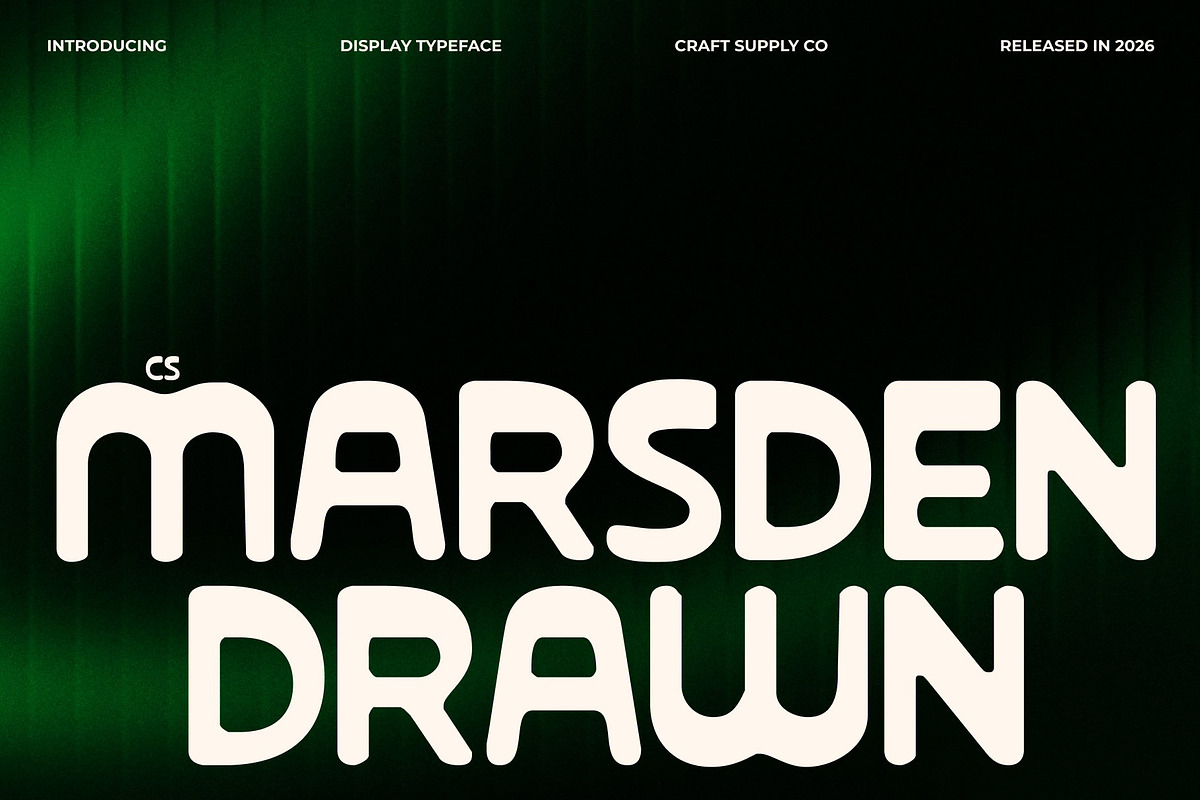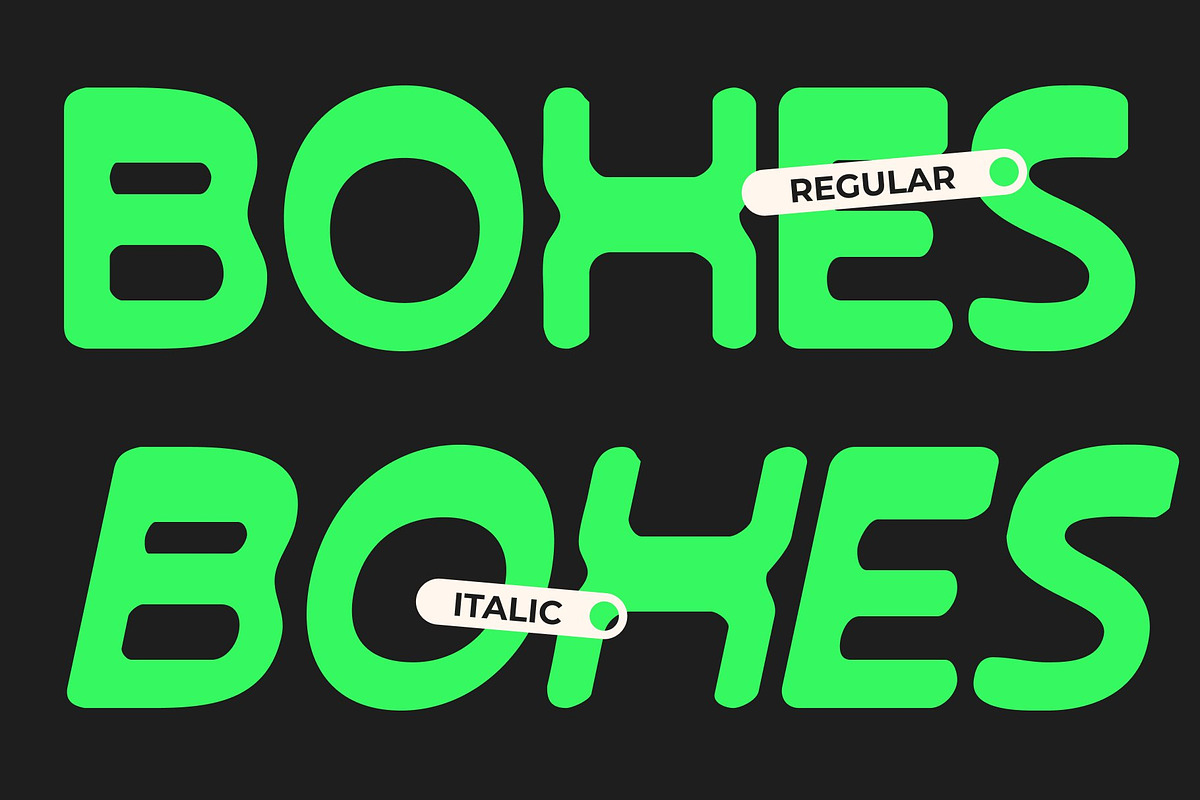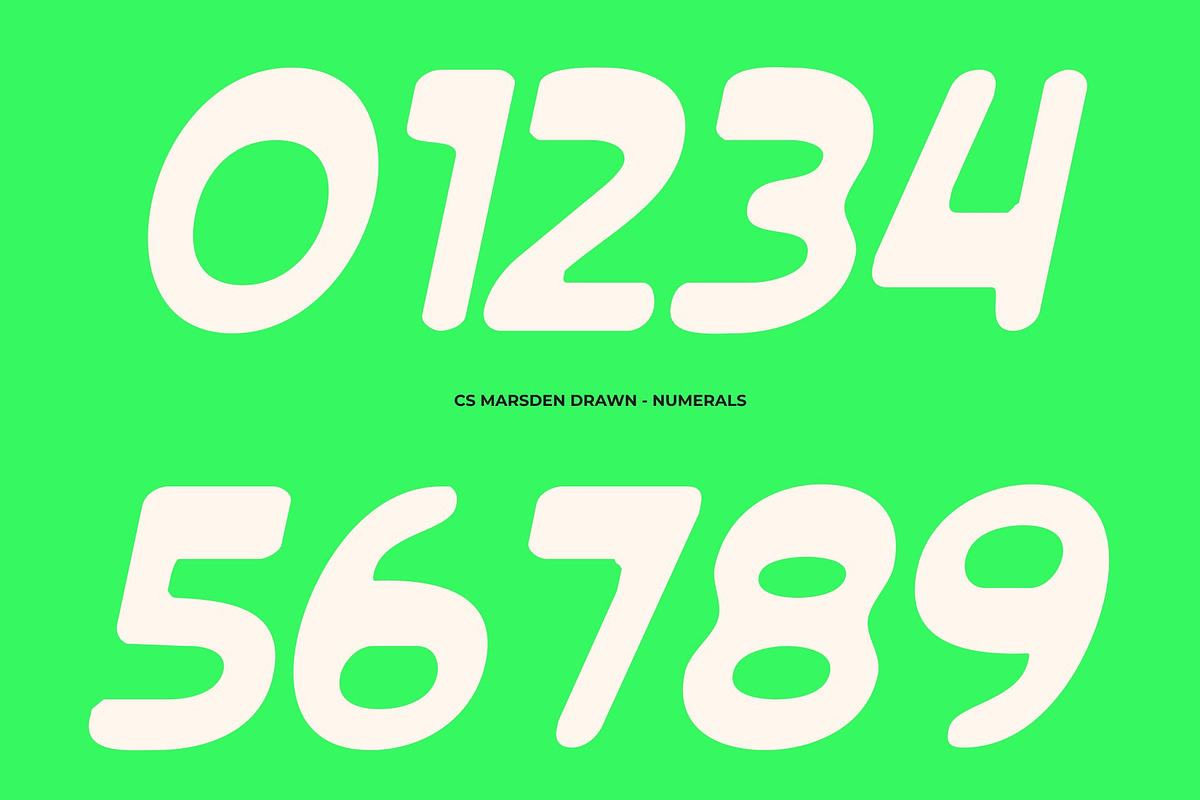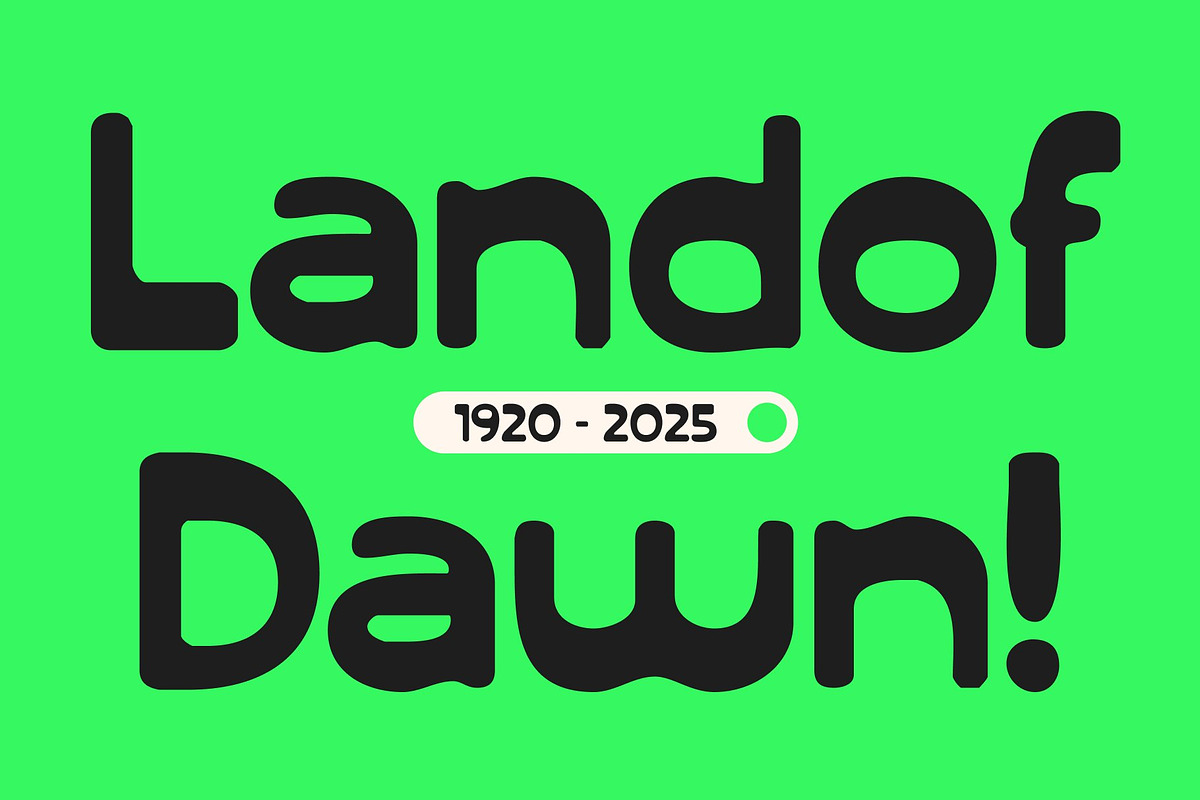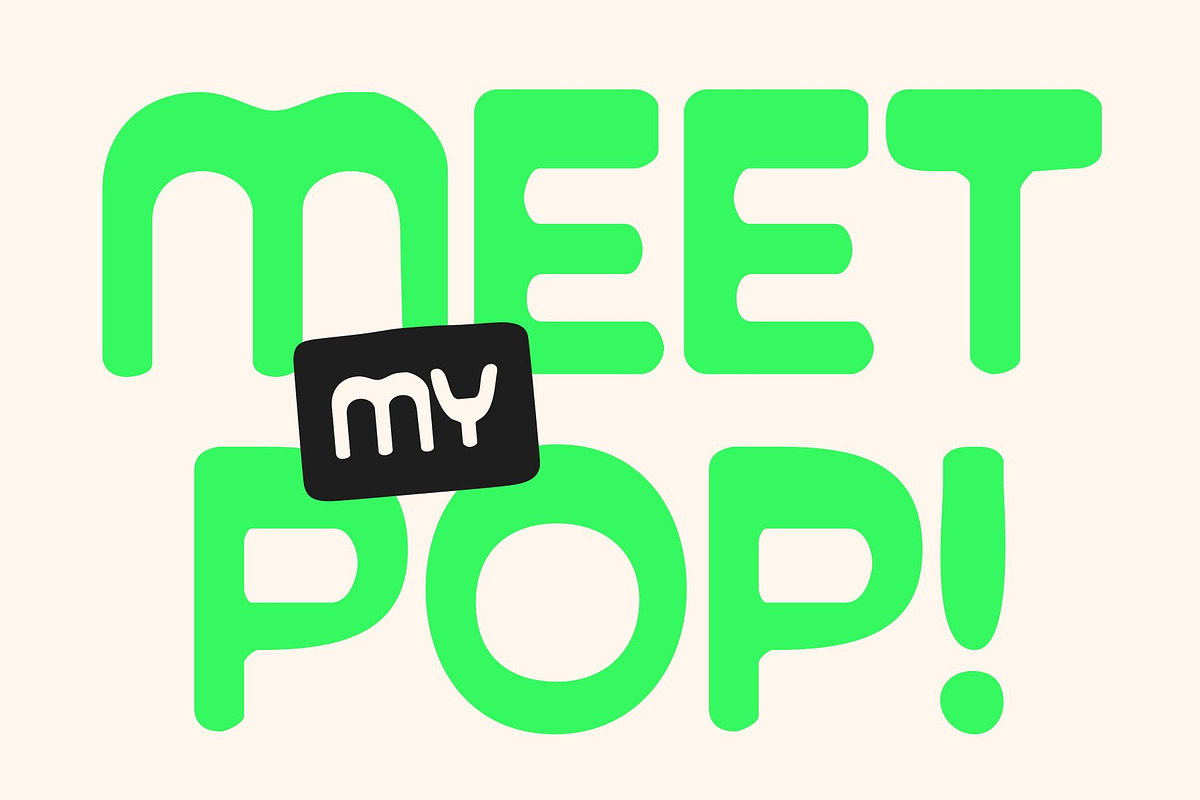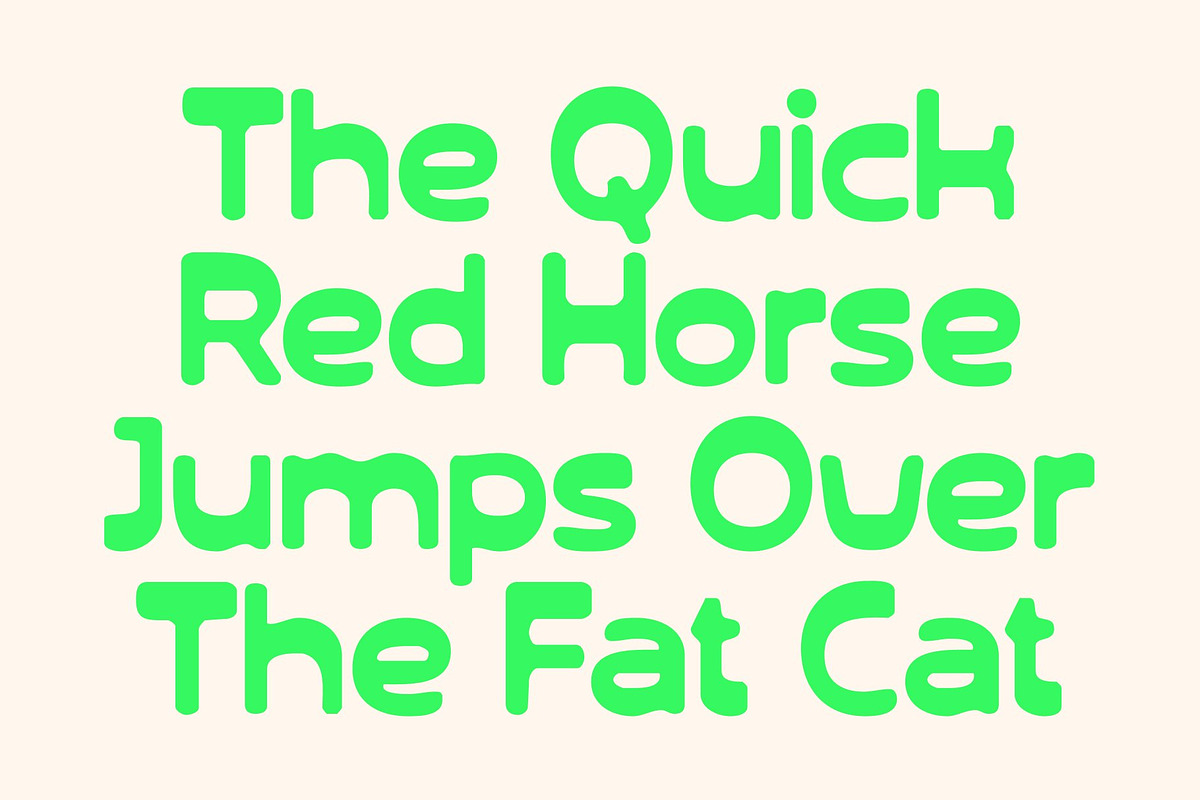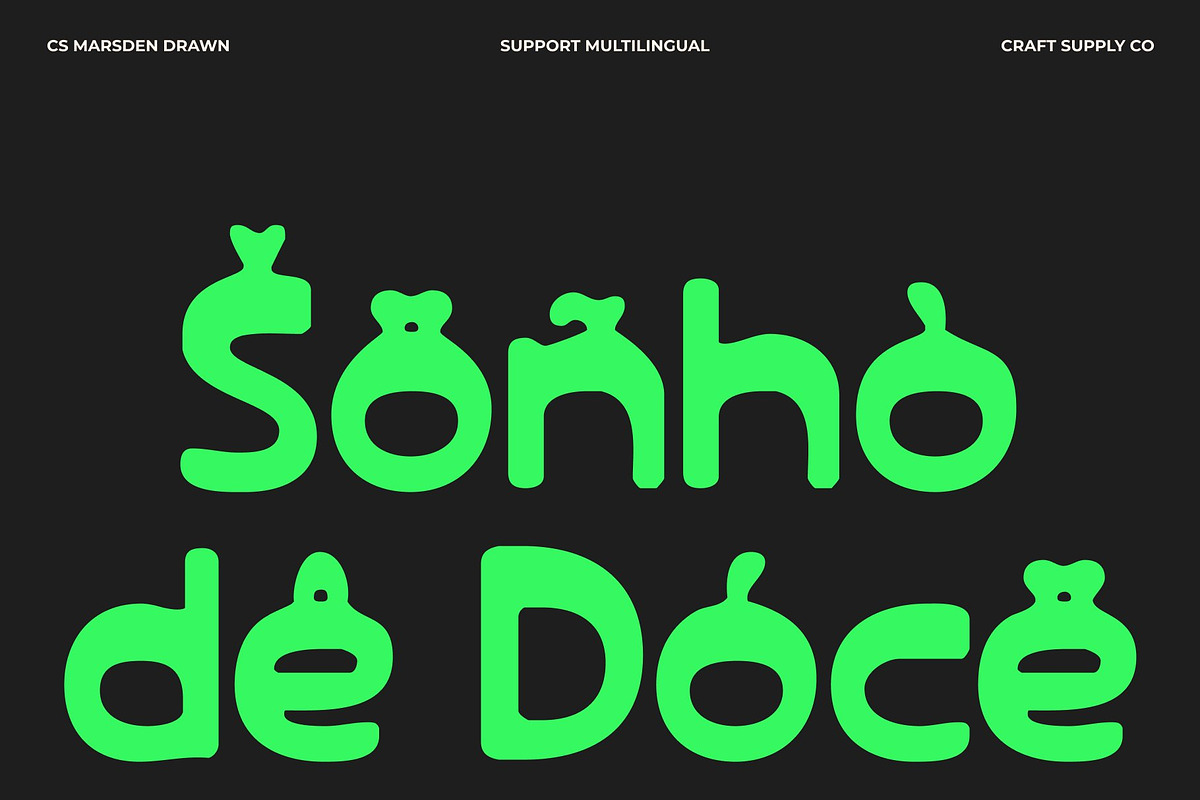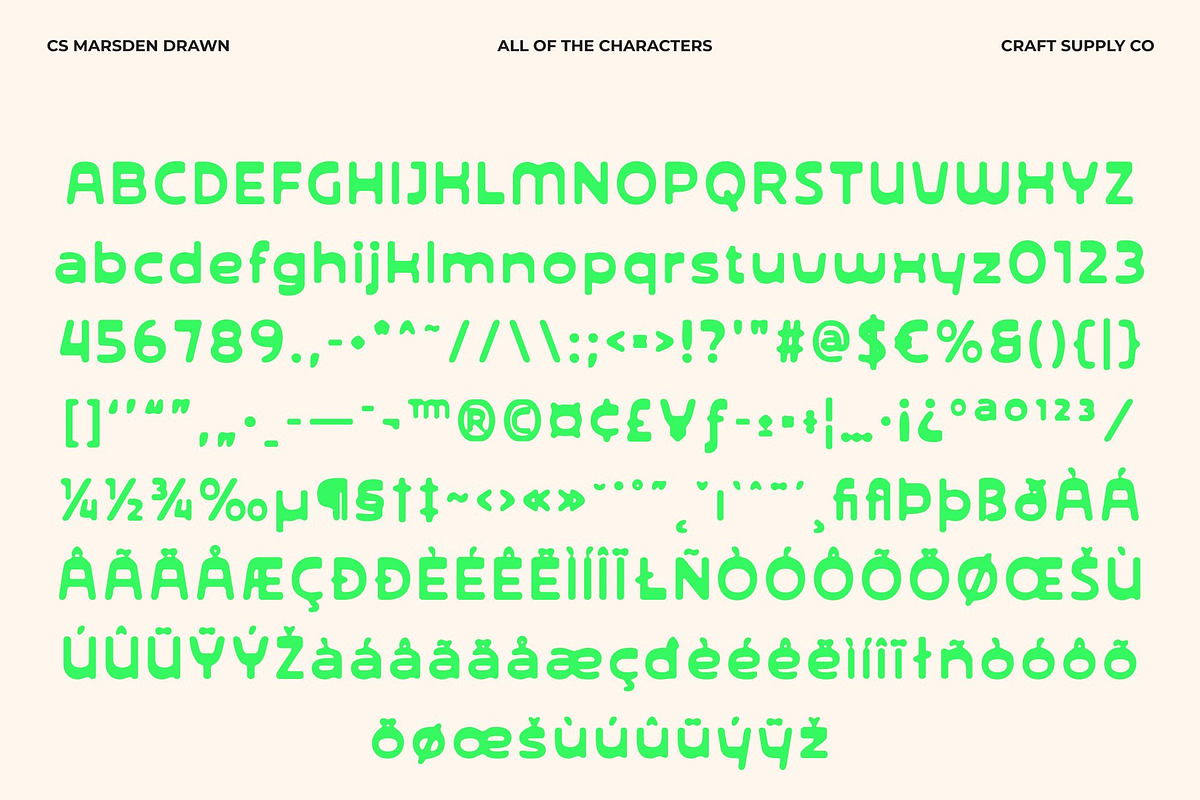
CS Marsden Drawn
CS Marsden Drawn – Bold Reverse Contrast with Modern Flair
Reverse Contrast Sans Serif with Distinctive Style This is a modern reverse-contrast sans-serif display font that commands attention through its bold forms and distinctive modular construction. By inverting traditional stroke contrast, it delivers a visually striking presence that blends contemporary design sensibilities with subtle references to classic typographic principles. Each letter carries strong character, making the font ideal for designs that aim to stand out with confidence.
Modular Geometry for Modern Precision Built on carefully crafted modular geometry, this typeface achieves balance and consistency across every character. Its structured forms enhance visual harmony and readability while maintaining a sleek, modern aesthetic allowing designers to combine precision with expressive style.
Drawn Texture for Organic Authenticity The hand-drawn effect adds an organic and artistic layer, giving the font a personal, authentic, and uniquely crafted feel. This texture softens its bold geometry, making it especially suitable for invitations, logos, and handmade or artisanal product branding where originality and character matter most.
Perfect for Distinctive Branding and Promotion Balancing classic inspiration with modern flair, excels in creative projects that value both sophistication and impact. Its bold, modular, and hand-rendered aesthetic makes it an excellent choice for distinctive branding, promotional campaigns, and expressive visual identities.
CS Marsden Drawn Regular
CS Marsden Drawn Italic